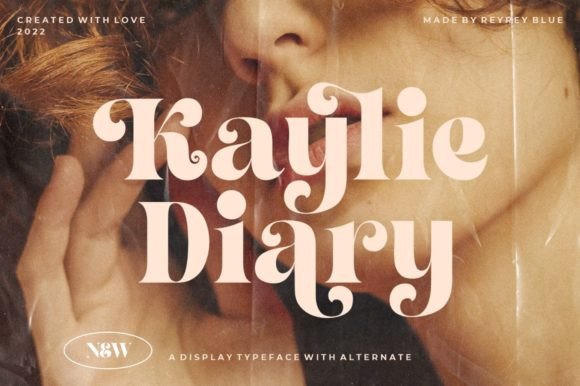
Dive into the enchanting world of eloquence with Kaylie Diary Font, the captivating serif typeface that exudes sophistication, playfulness, and a touch of feminine charm. Designed by the brilliant Reyrey Blue, this font family is a symphony of elegance, perfect for adding a touch of class to your creative endeavors.
Journey into the realm of design possibilities with Kaylie Diary Font. Its diverse collection of alternative variations empowers you to craft designs that are uniquely yours, standing out from the ordinary and embracing the extraordinary. Let your imagination soar as you explore the boundless opportunities this font family presents.
Unleash your creativity with Kaylie Diary Font, the perfect companion for your elegant and luxurious logo designs. Envision your brand name adorned in the graceful curves and delicate serifs of this font, exuding an aura of prestige and sophistication. Kaylie Diary Font breathes life into book and movie titles, transforming them into works of art that capture the essence of your story.
Immerse yourself in the world of fashion and let Kaylie Diary Font elevate your designs to new heights. Its refined aesthetics seamlessly blend with fashion brands, magazines, and clothing lines, adding a touch of allure and exclusivity. With Kaylie Diary Font, your designs will captivate and entice, leaving a lasting impression on your audience.
Express your innermost thoughts and emotions with Kaylie Diary Font, the perfect choice for lettering and quote designs. Let your words dance across the page in a symphony of elegance, conveying your messages with a touch of grace and beauty. Create posters that resonate with your audience, leaving them captivated by your words and the captivating visuals brought to life by Kaylie Diary Font.
Kaylie Diary Font is more than just a font; it's an experience that transforms your designs into exquisite works of art. Its versatility knows no bounds, extending to branding, magazines, merchandise, and logos, adding a touch of sophistication and charm to every project you undertake.